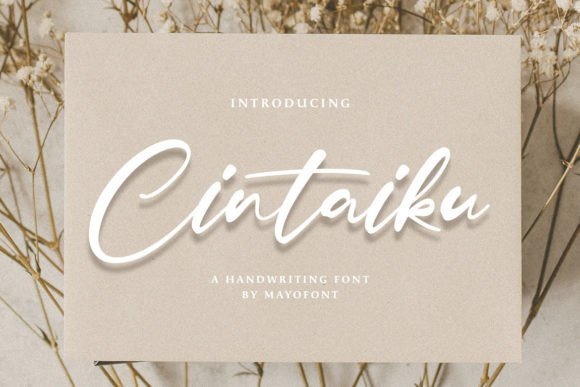
Embracing the Art of Handwritten Love
Have you ever found yourself sitting at your desk, staring blankly at a blank page, waiting for inspiration to strike? For many designers, that moment comes when they’re tasked with creating something truly special – a wedding invitation, a birthday card, or a heartfelt letter. It’s in these moments that the right font can make all the difference, elevating your design from ordinary to extraordinary.
Enter Cintaiku Font, a beautiful and authentic script font that brings a touch of handwritten artistry to your designs. With its flowing strokes and gentle curves, Cintaiku Font effortlessly transforms words into captivating works of visual poetry. Whether you’re a professional designer or a creative hobbyist, this font is a valuable addition to your toolkit, allowing you to add a sense of warmth and authenticity to your projects.
Cintaiku Font Key Features
- Font Family: Cintaiku Font is a unique, hand-drawn font family designed to evoke a sense of elegance and sophistication.
- Unique Characteristics: Cintaiku Font features intricate details, swashes, and flourishes, making it perfect for creating eye-catching titles, headings, and quotes.
Cintaiku Font Review
Overall, I found Cintaiku Font to be a charming and elegant script font. It’s perfect for designers who want to add a touch of romance and sophistication to their projects.
- ✨ Beautifully crafted ligatures and letter connections that give the font a natural, handwritten feel.
- ✨ High-quality texture that resembles traditional hand-drawn lettering.
- ✨ Extremely versatile font that can be used for a wide range of applications, from wedding invitations to greeting cards.
- ✨ Excellent legibility, even at small font sizes.
- ⚠️ The font may not be suitable for body text due to its cursive nature, which can make it difficult to read for extended periods.
- ⚠️ Limited language support, making it less ideal for multilingual projects.
- ⚠️ Some users may find the font too ornate or decorative, which can detract from its overall effectiveness.
Cintaiku Font is a lovely addition to any designer’s toolkit. While it may have some limitations, its unique charm and elegance make it a great choice for specific projects that require a touch of romance and sophistication.
Cintaiku Font: A Practical Application Guide
Tips for Getting the Most Out of Cintaiku Font
Experiment with different font sizes, colors, and styles to create a unique visual effect. Pair Cintaiku Font with other fonts to create a harmonious typography. Use it for headings, titles, or body text to add a touch of elegance to your design.
Cintaiku Font is ideal for wedding invitations, love letters, and romantic greeting cards. It’s also suitable for creating elegant business cards, logo designs, and typography-based artwork.